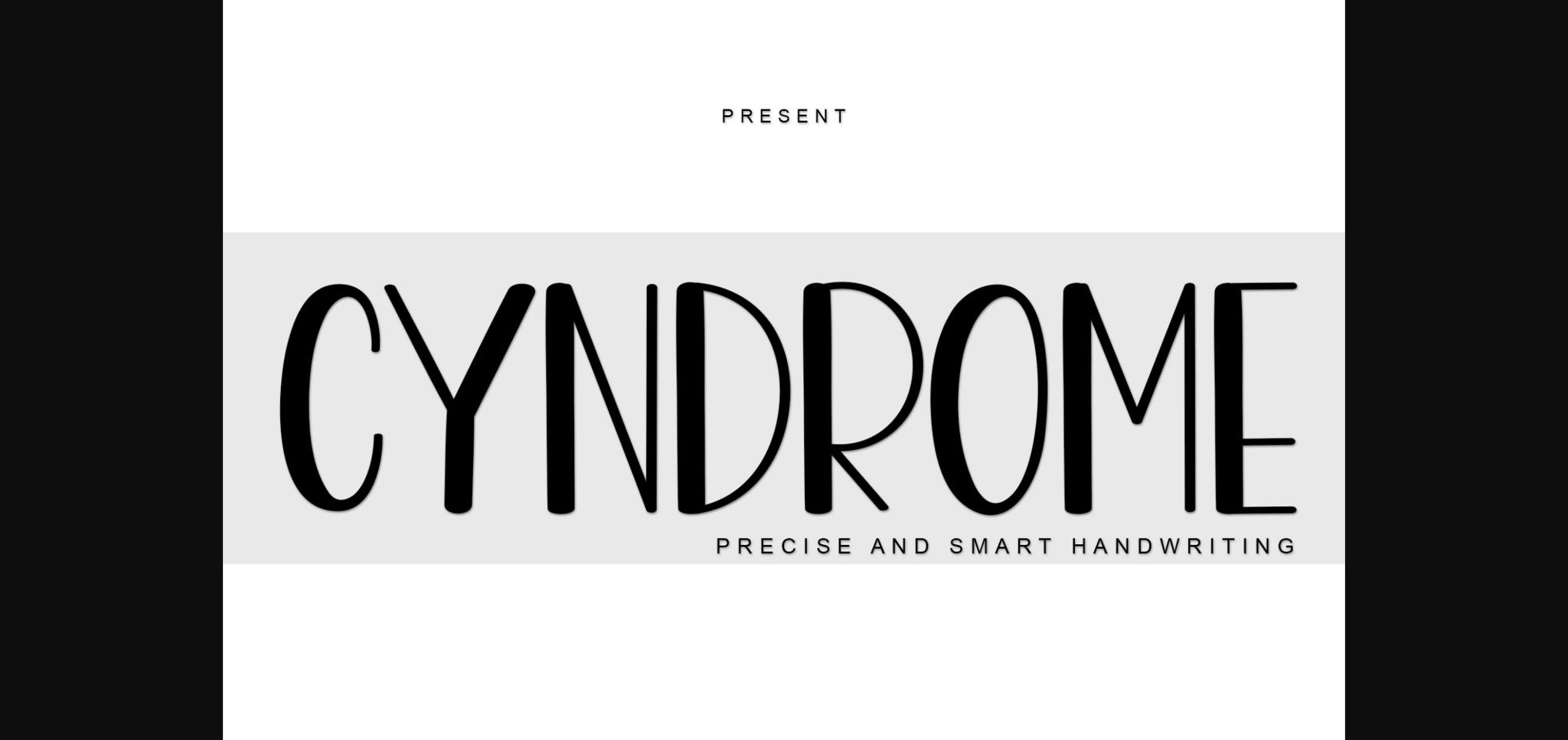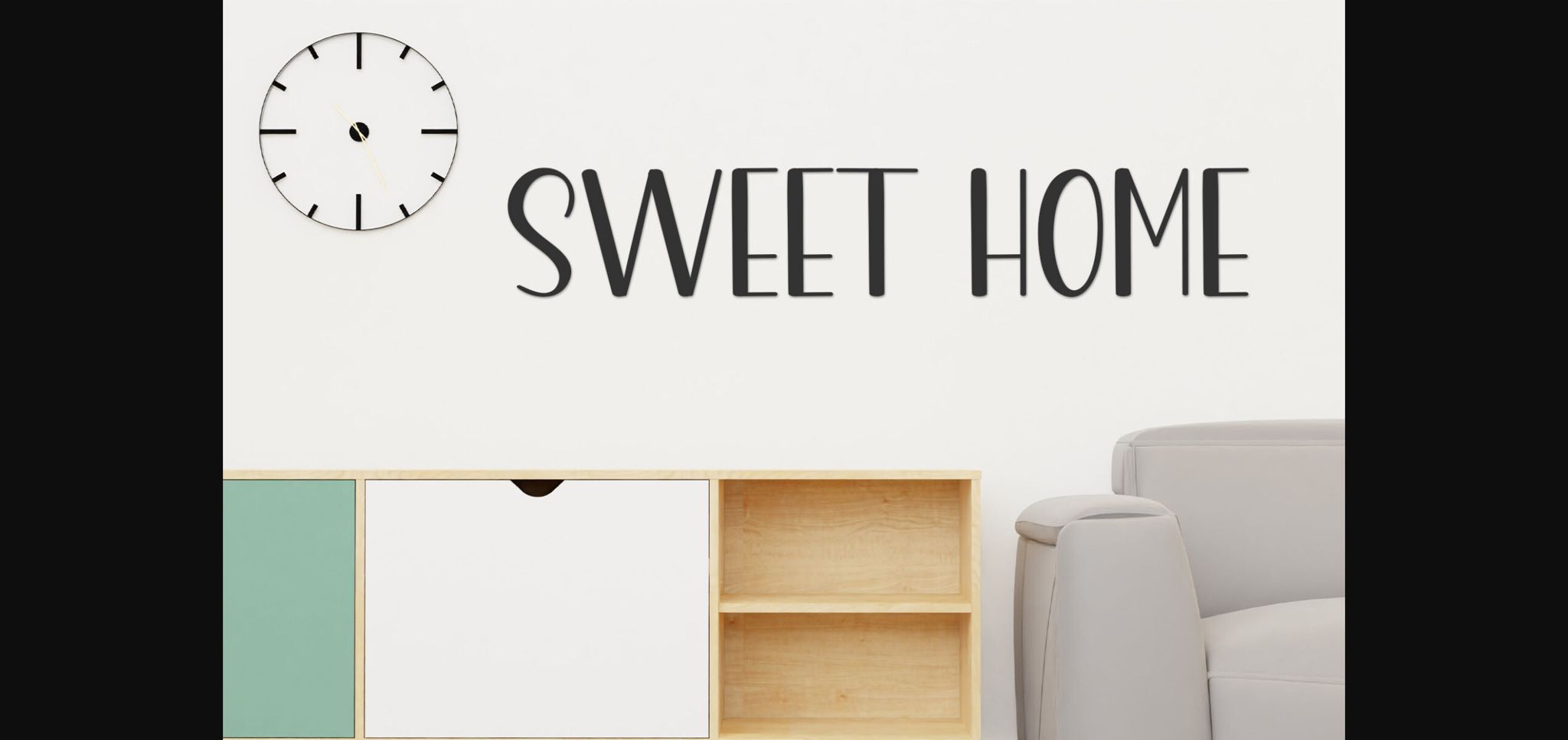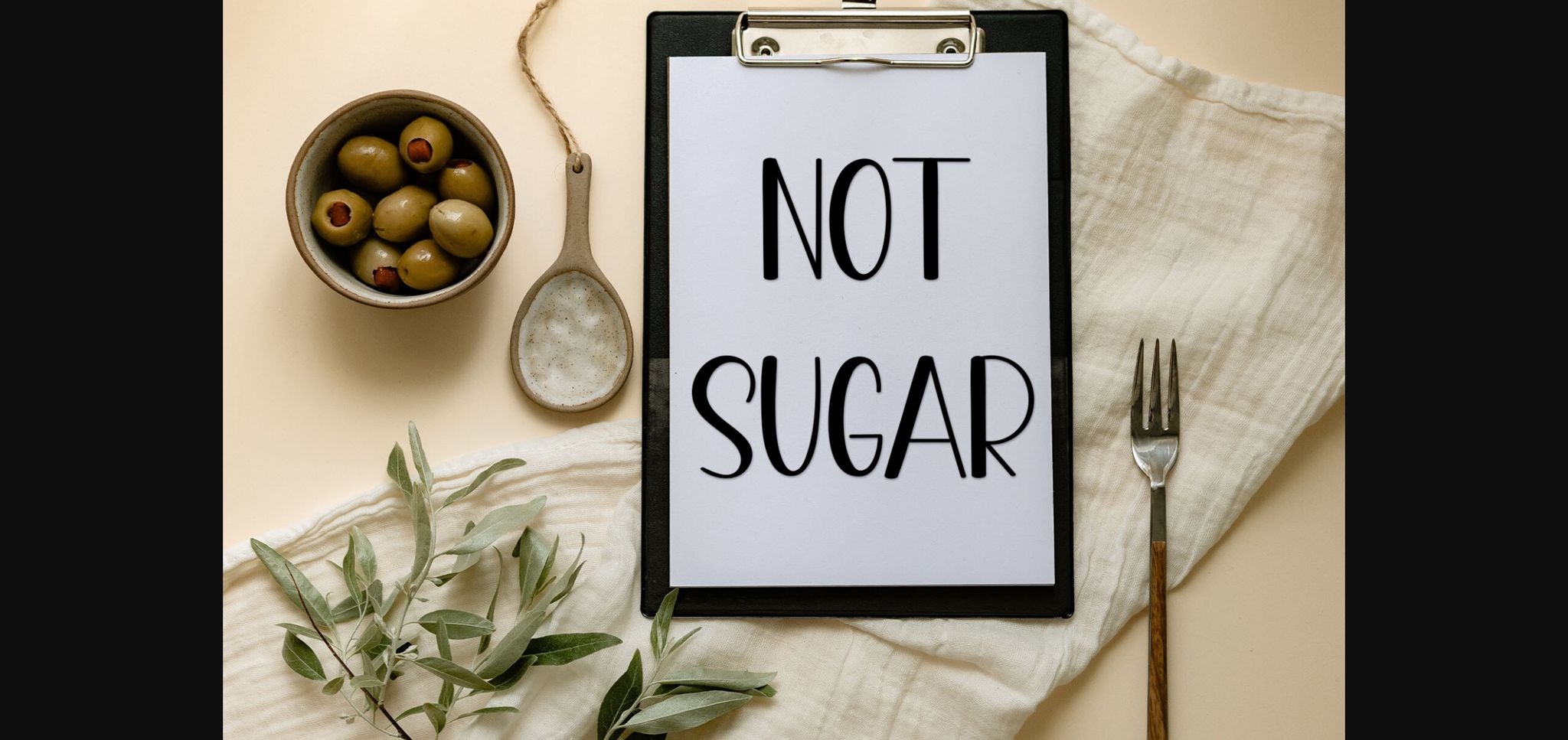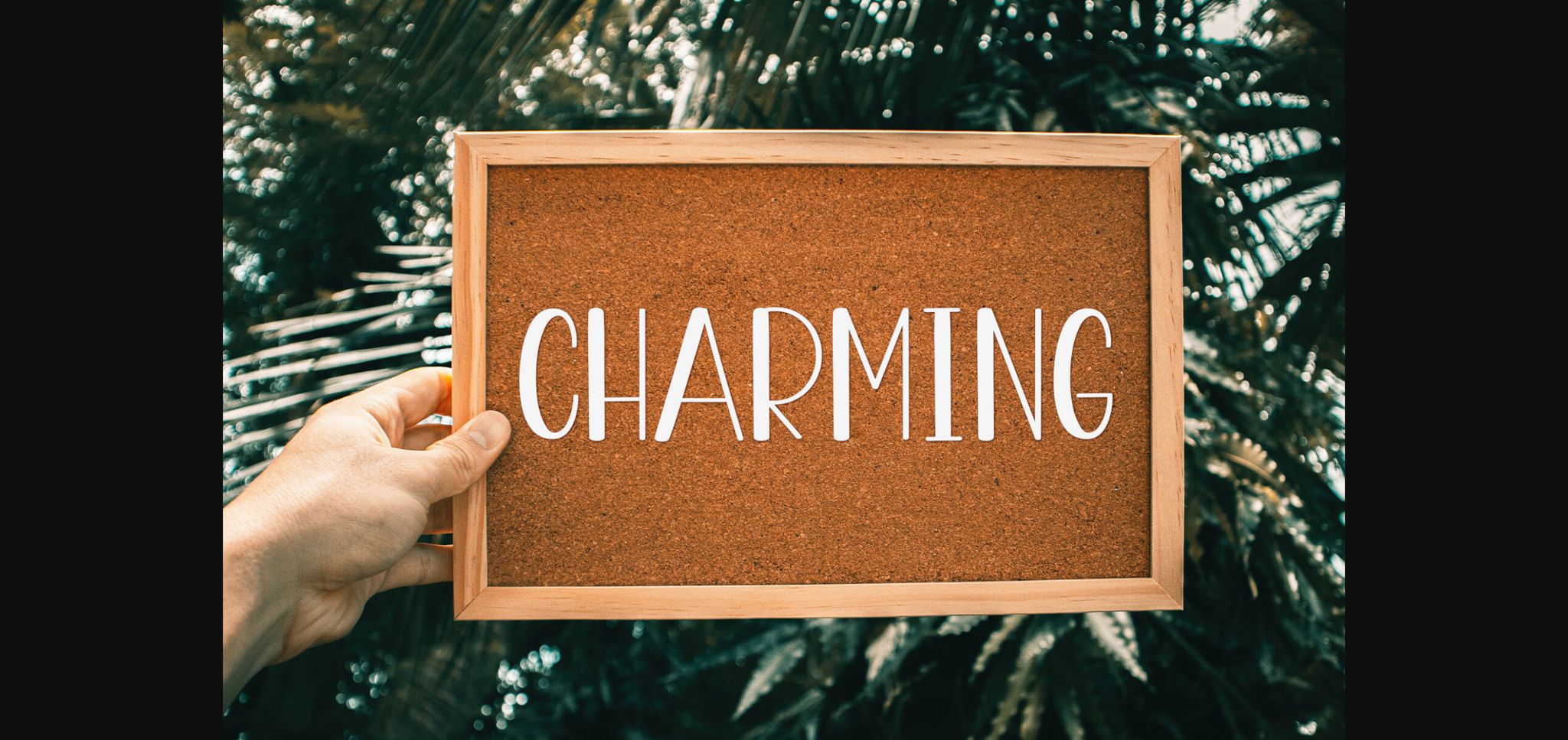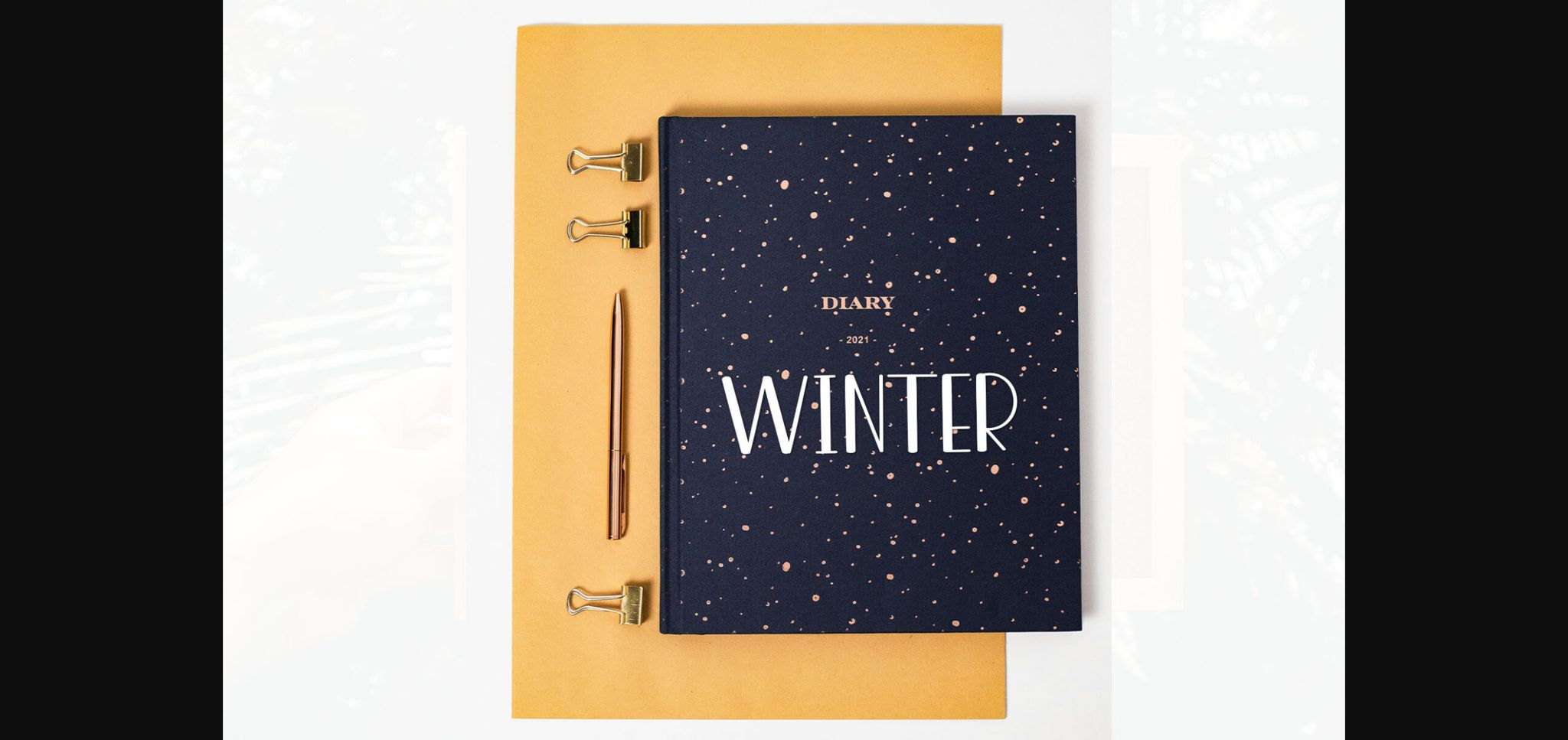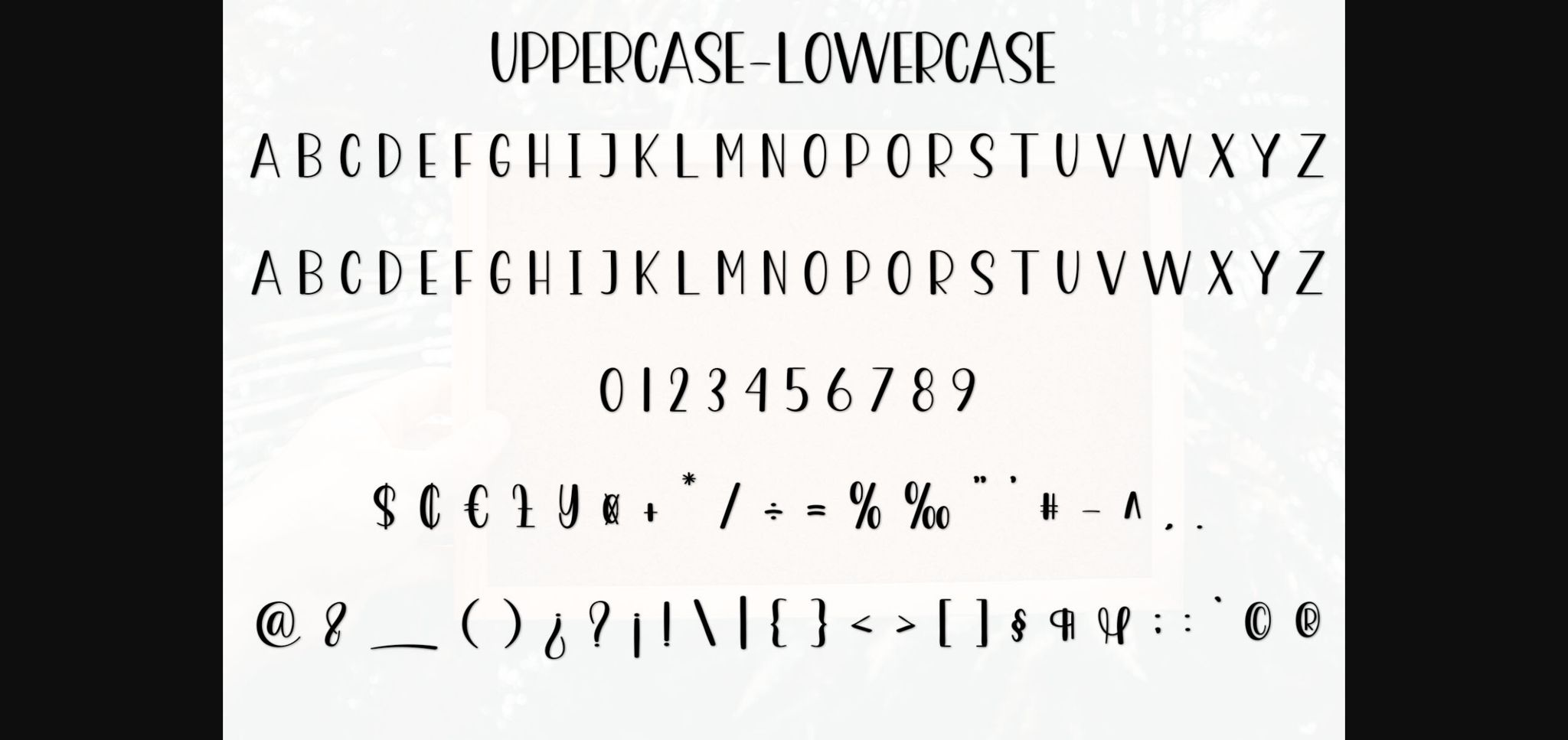
HomeSans Serif FontsCyndrome Font Sans Serif Fonts Cyndrome Font FacebookXPinterestWhatsApp 1 of 9 ... Cyndrome Font Poster 2... Cyndrome Font Poster 3... Cyndrome Font Poster 4... Cyndrome Font Poster 5... Cyndrome Font Poster 6... Cyndrome Font Poster 7... Cyndrome Font Poster 8... Cyndrome Font Poster 9... About Cyndrome Font Cyndrome is a cool and modern sans-serif font. Whether you’re using it for crafts, digital design, presentations, or creating greeting cards, this font has the potential to become your go-to font, whatever the occasion. DOWNLOAD NOW People also explored Kisah Ceritra Font Lord Bolleans Font Syahnas Font Anker Font Mandala Handmade Font Black Rockets Font Sarthina Font Albiona Inked Humming Font 422 0 TagsCyndrome Font Previous articleRopinie FontNext articleMontra Font LEAVE A REPLY Cancel reply Comment: Please enter your comment! Name:* Please enter your name here Email:* You have entered an incorrect email address! Please enter your email address here Website: Save my name, email, and website in this browser for the next time I comment. Personal Use Free Screengem Personal Use Free Read more about this font Cute Messy Personal Use Free Read more about this font Abberancy Personal Use Free Read more about this font Zojihun Personal Use Free Read more about this font BLOG 5 Fonts That Will Dominate Design Trends in 2026 5 Fonts for 2026 That Will Dominate Design Trends Typography plays a critical role in visual communication, and as we look ahead to 2026, it’s... Best Fonts for T-Shirt Design – Top 2025 Picks Modern Sans-Serif Fonts That Brands Love in 2025 Free Fonts Risk: Why Free Fonts Can Be Dangerous for Designers